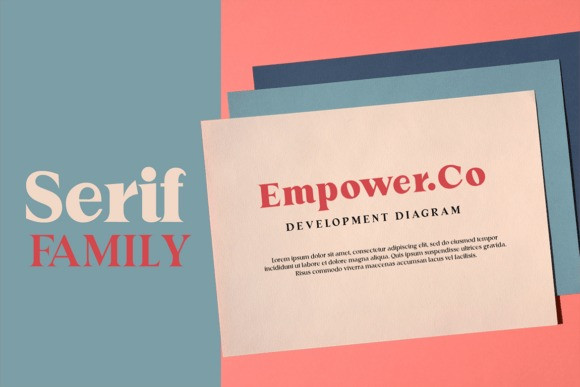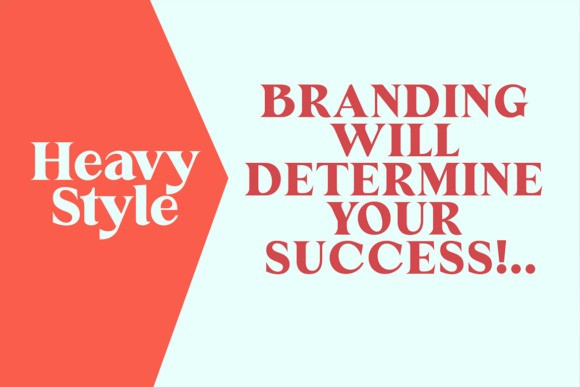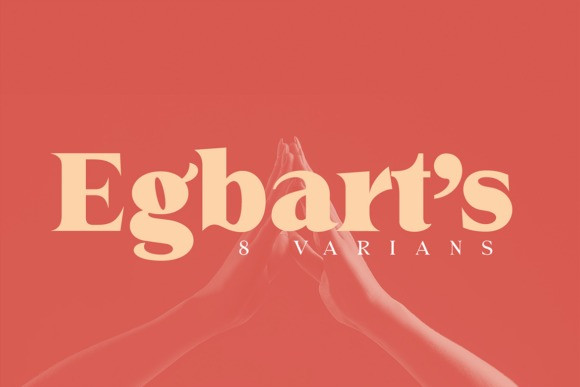
Egbart’s Font
Egbart’s Font is a bold, high-contrast serif font family that masterfully blends classic elegance with a contemporary edge. It features thick, dramatic strokes paired with sharp, flared serifs. The tight curves and solid presence of the letterforms create a sophisticated, high-fashion aesthetic.
With 8 versatile variants, this family provides extensive creative flexibility, making it an exceptional choice for luxury branding, editorial layouts, boutique logotypes, and impactful advertising headers that require a “smart” and stylish typographic voice.